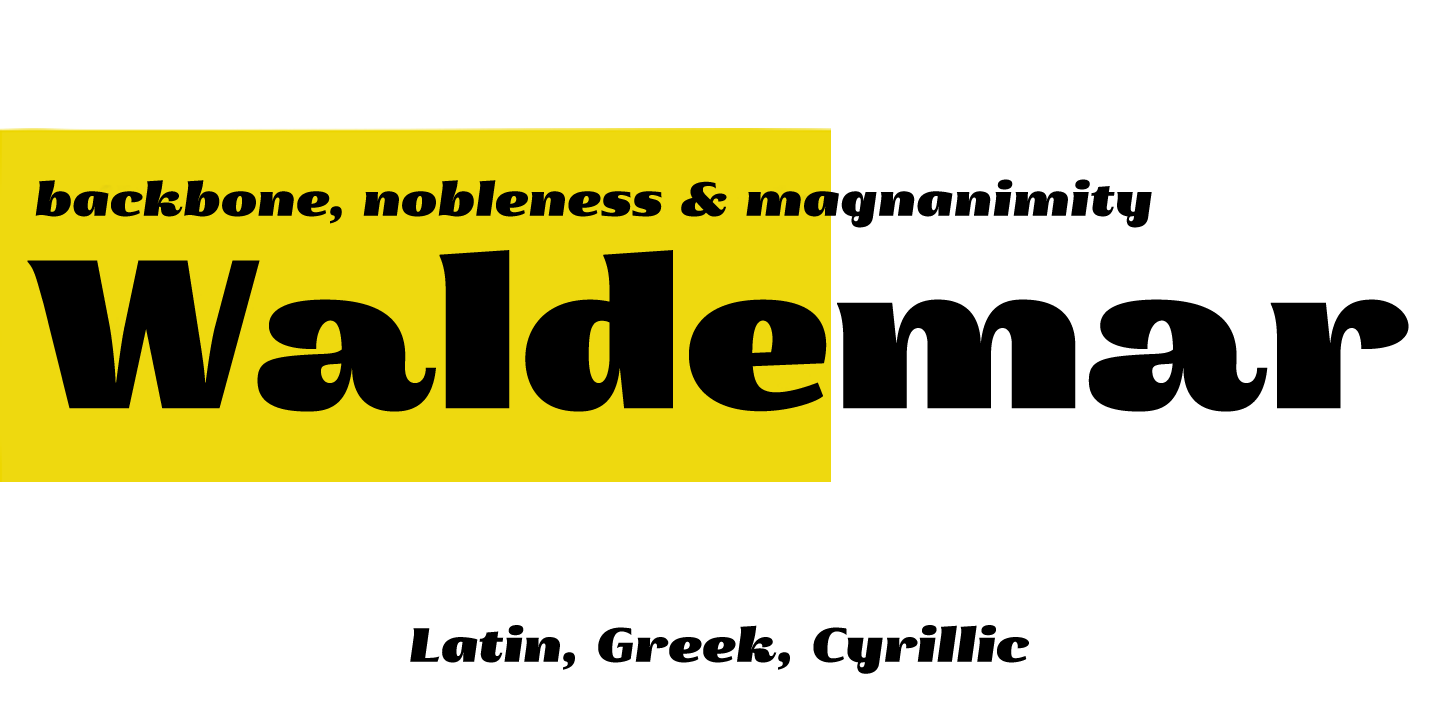
Waldemar 4F Font Free Download is a classic and elegant serif typeface that blends vintage charm with contemporary design. With its sophisticated curves and refined strokes, it’s ideal for projects that need to convey both tradition and modernity, such as editorial designs, branding, invitations, and more.
Its well-defined letterforms make it highly readable, even in smaller text, while its stylish design adds a touch of luxury and professionalism to any project. Whether you're working on logos, posters, or high-end publications, Waldemar 4F brings an upscale, timeless aesthetic to your designs.